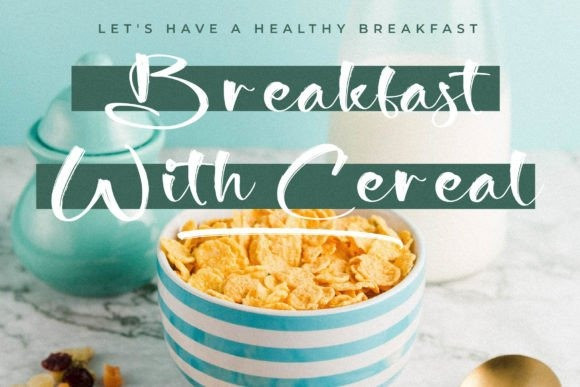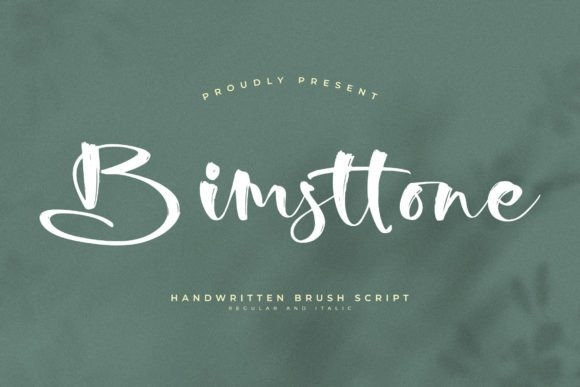
Bimsttone Font
Bimsttone Font – Handwritten Brush Script , from Glorytype Studio, suitable for any projects such as: logos, branding projects, homeware designs, product packaging, mugs, quotes, posters, shopping bags, t-shirts, book covers, name card, invitation cards, greeting cards, label, photography, watermark, special events, and all your other lovely projects that need a beautiful script taste.